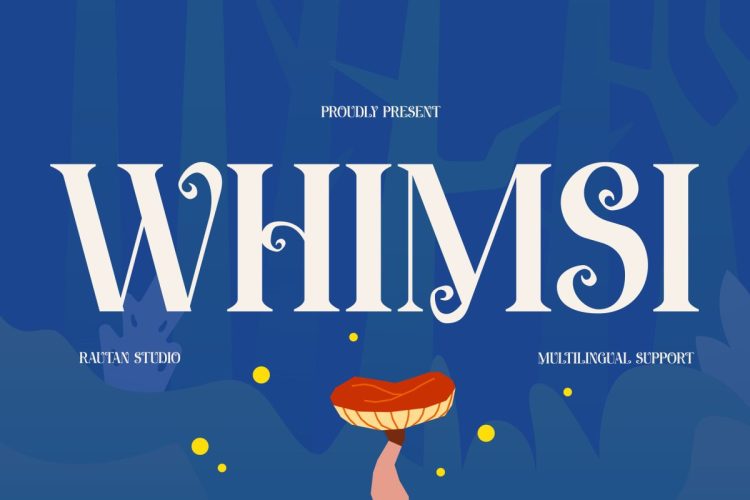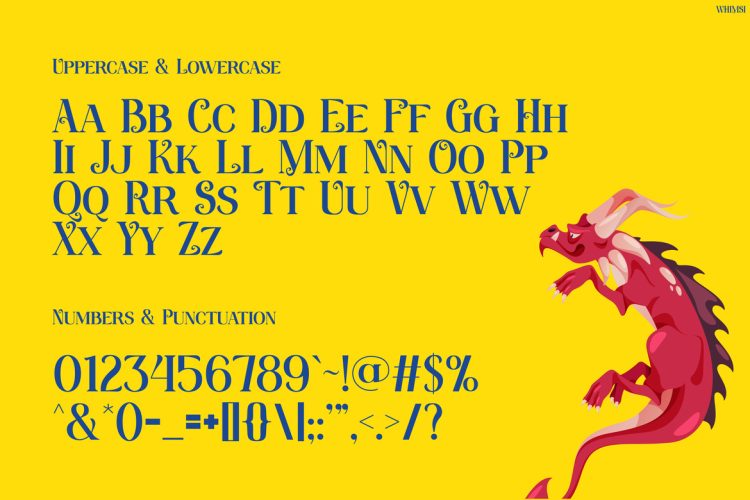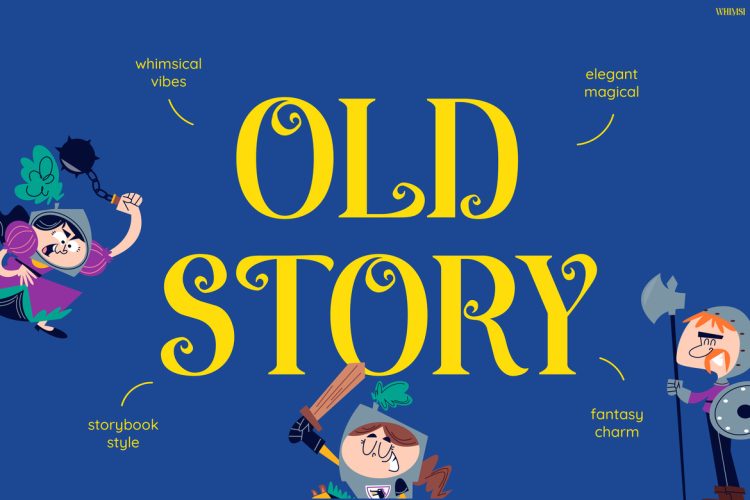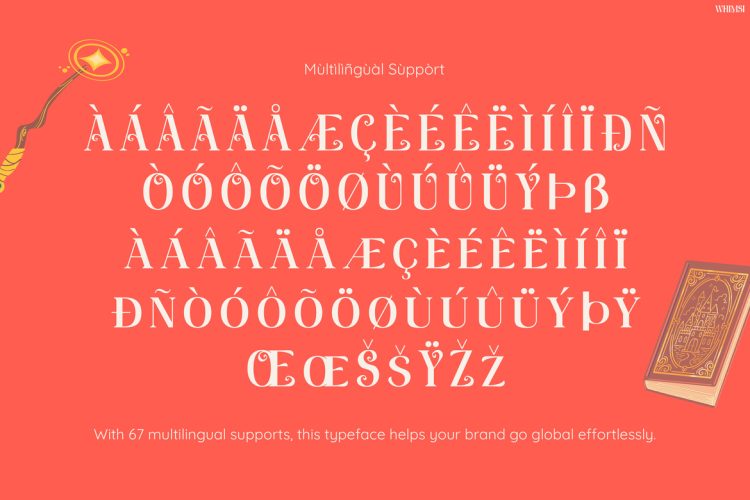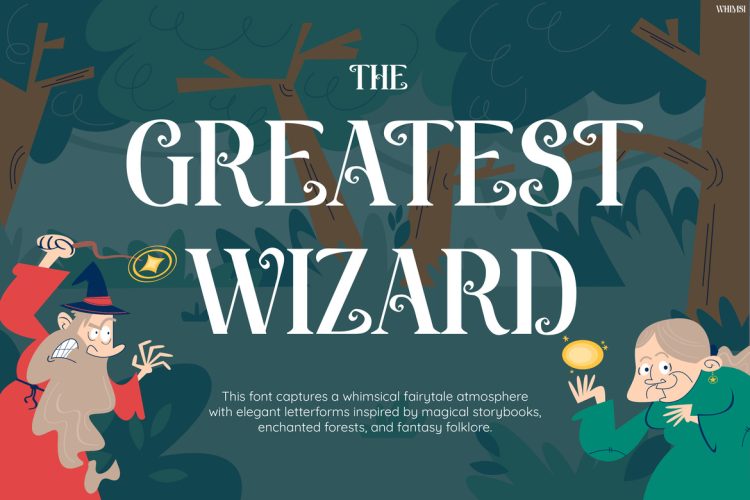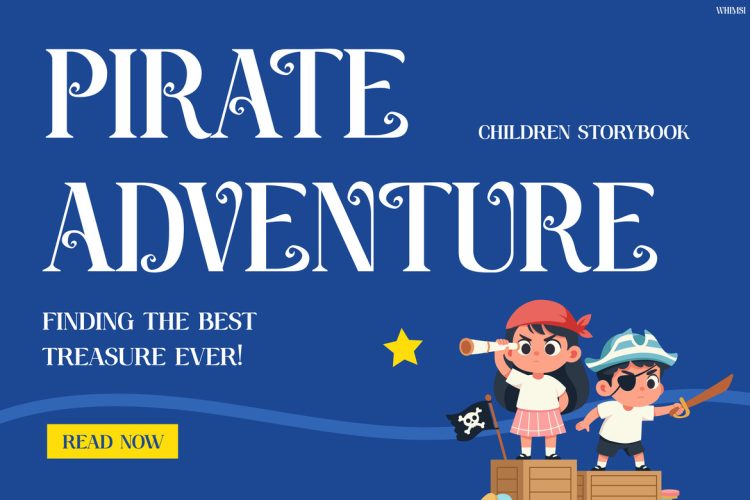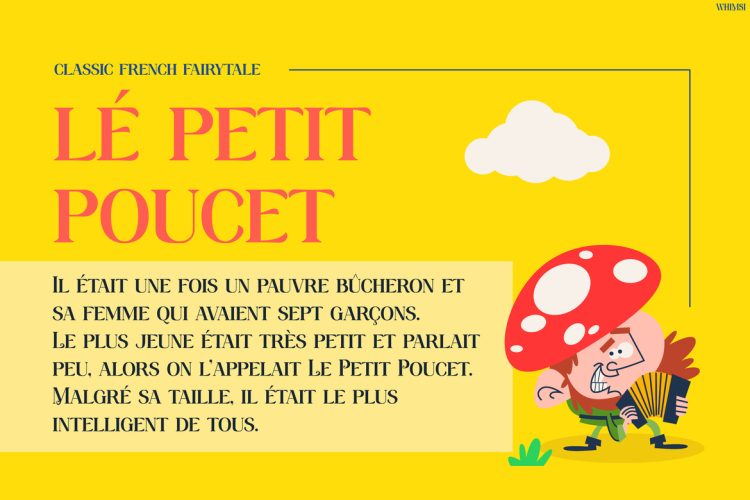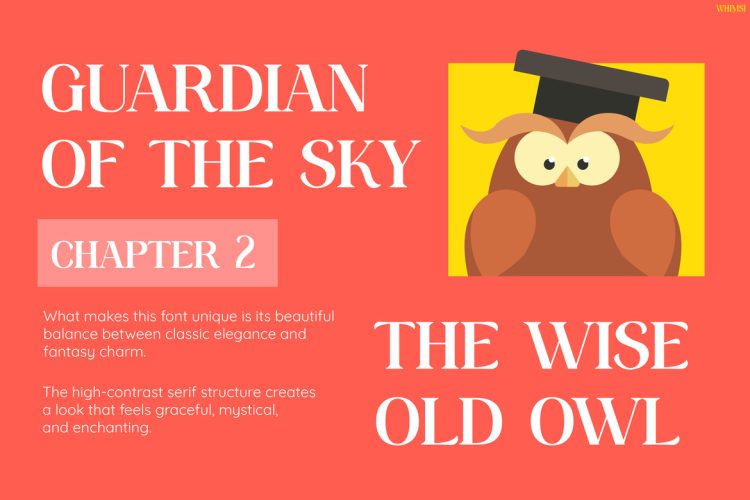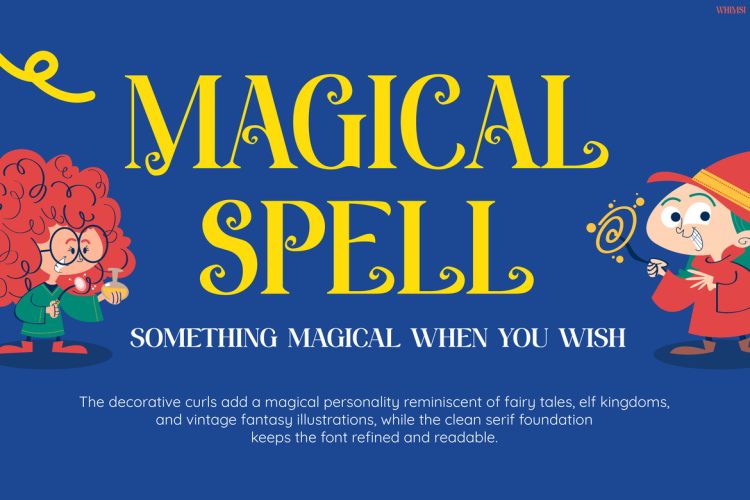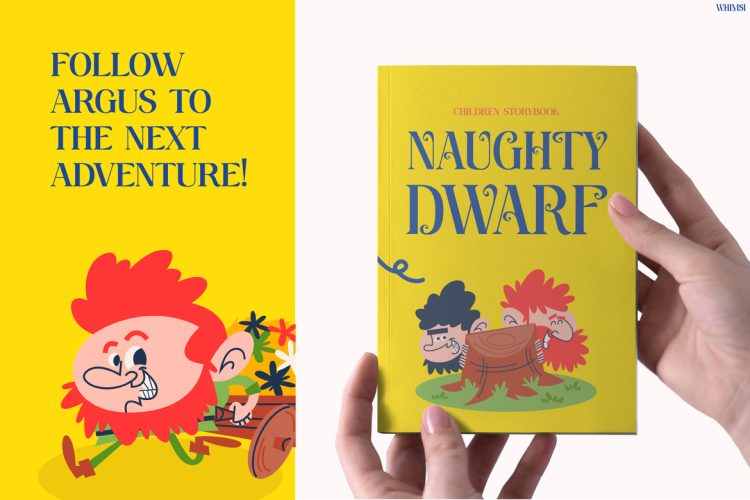
Kids Font Whimsi โ Whimsical Storybook Font for Magical Kids Designs
Kids Font Whimsi is a playful and imaginative display font that instantly transforms ordinary text into magical visual storytelling. With its decorative serif style, charming curves, and fantasy-inspired details, this font creates a delightful storybook atmosphere from the very first glance. Moreover, the artistic letterforms feel elegant yet cheerful, so your typography looks both creative and highly readable. In addition, the unique shapes give every headline more personality and visual impact. Because of its balanced appearance, Kids Font Whimsi works beautifully for both print and digital projects. Furthermore, the whimsical styling helps designs feel warmer, more expressive, and far more memorable. Even better, this font comes with Multilingual Support for 67 Languages, so you can create engaging international designs more easily and more professionally.
Why Kids Font Whimsi Looks So Special
Kids Font Whimsi combines vintage fairy-tale aesthetics with modern playful typography. As a result, every word feels magical, lively, and eye-catching. Not only does the font add personality to your designs, but it also improves the overall visual atmosphere with its decorative and artistic touch. Additionally, the clean readability allows the font to stay functional while still looking highly creative. Meanwhile, the elegant serif details make your projects appear more premium and visually polished. Whether you are creating childrenโs books, fantasy posters, or classroom materials, this font helps every design feel more fun and imaginative. At the same time, the playful character style creates a joyful mood that audiences instantly enjoy. Therefore, your content can feel more engaging, friendly, and visually unique across many creative themes.
- Childrenโs book covers
- Fantasy-themed posters
- Kids branding and packaging
- Classroom decorations
- Toy packaging designs
- Cartoon thumbnails
- Birthday invitations
- Creative social media posts
- Educational materials
- Merchandise and apparel
Make Your Typography Feel More Magical